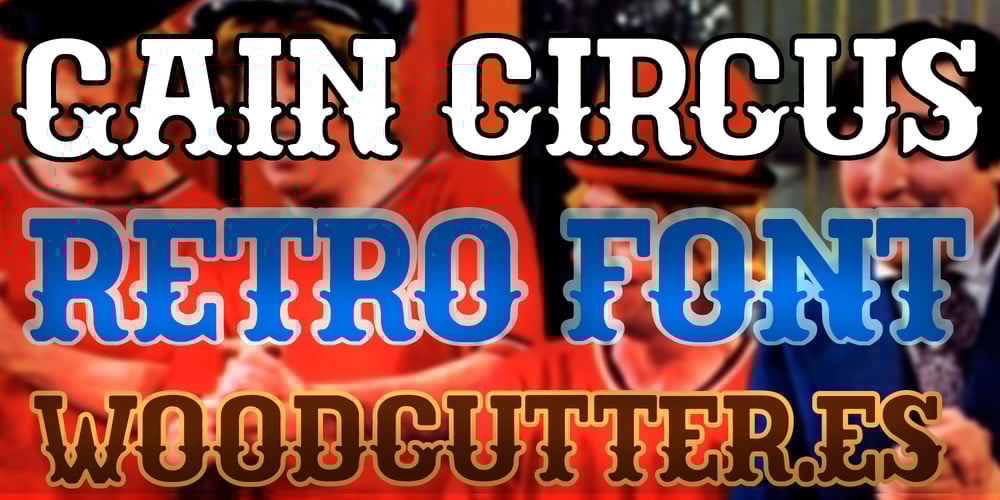
Gain Circus Font Family was designed by Jordi Manero and published by Woodcutter. Gain Circus contains 1 styles and family package options. “Gain Circus” is a solid font that emanates the essence of retro circus, similar to “Pain Circus”. Its robust and bold letters are designed to capture attention and evoke the vibrant and nostalgic spectacle of old circuses. With a vintage style and a commanding presence, “Gain Circus” is ideal for posters, titles, and any design that needs to stand out with a classic and festive touch. This font is perfect for creative projects aiming to convey energy, fun, and a timeless sense of spectacle.